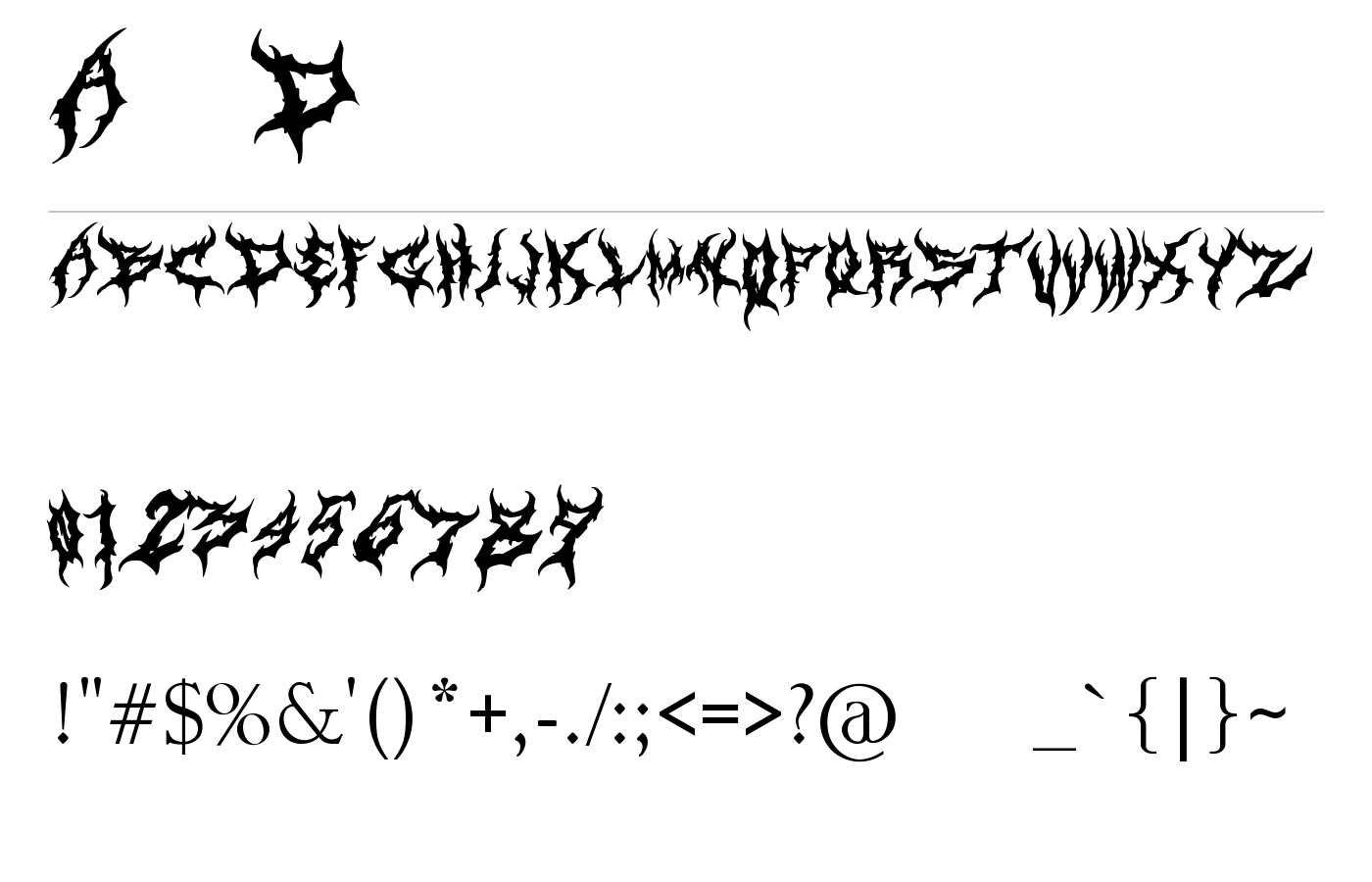
Art Dystopia is a bold, decorative display font featuring jagged, flame-like letterforms that evoke a dark, edgy, and futuristic vibe. With its sharp, irregular strokes and high contrast, this uppercase-only font works best for striking headlines, logos, and designs in the gaming, metal music, or sci-fi genres where a rebellious and intense style is desired. Its unique, aggressive shapes make it ideal for grabbing attention rather than long passages of text.
Art Dystopia Font
About Art Dystopia Font